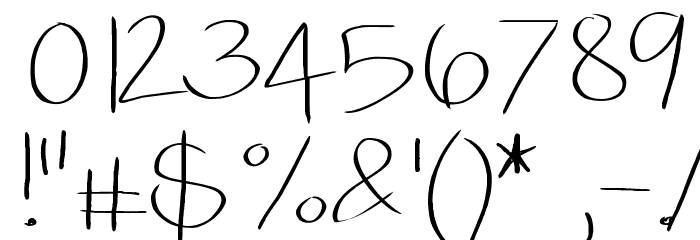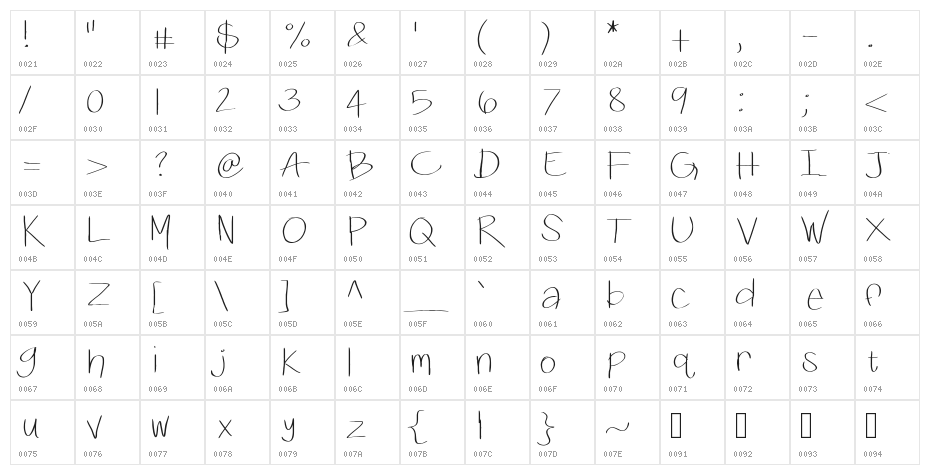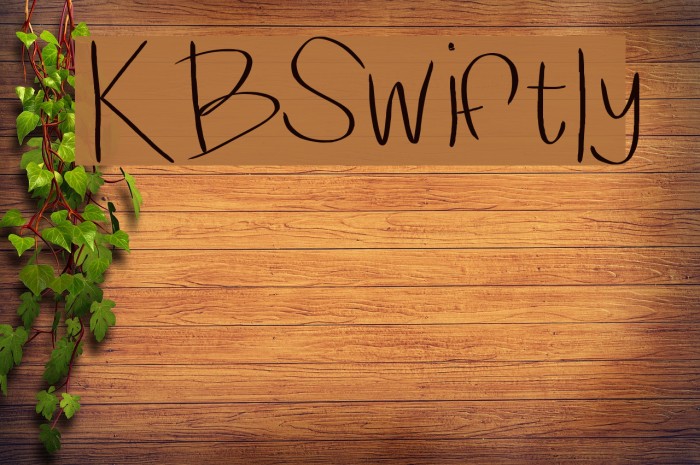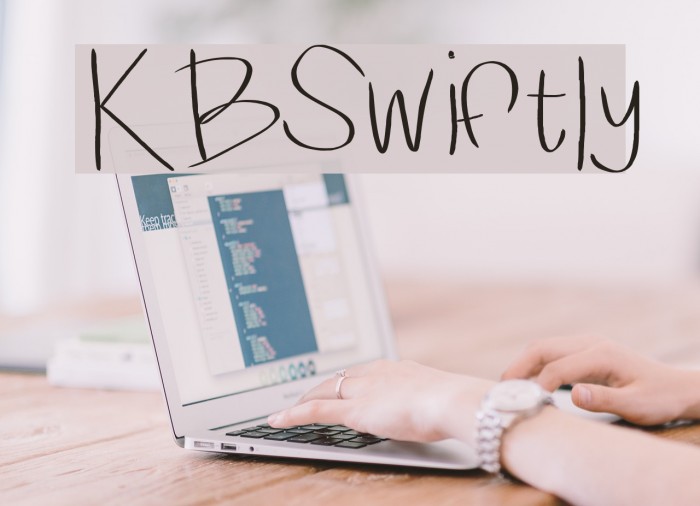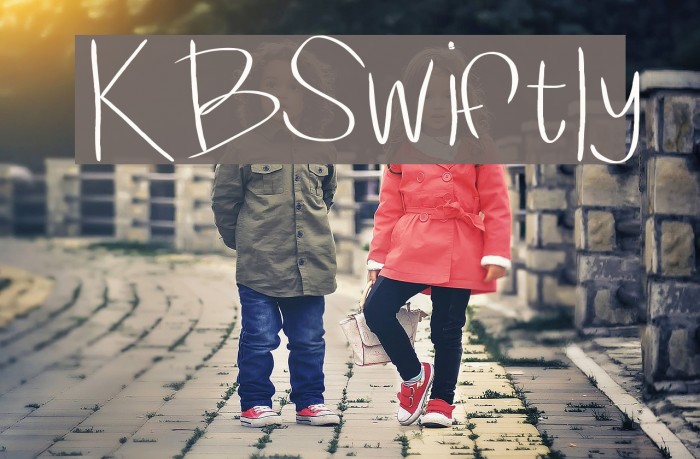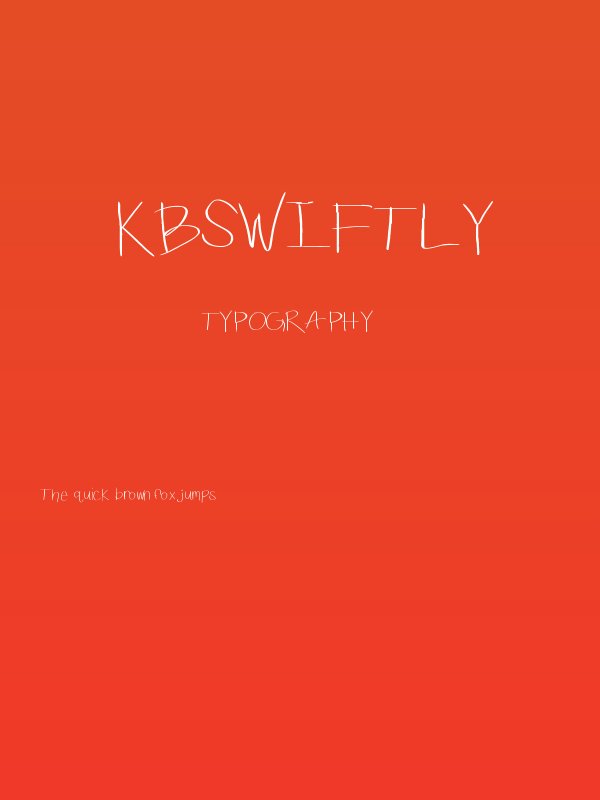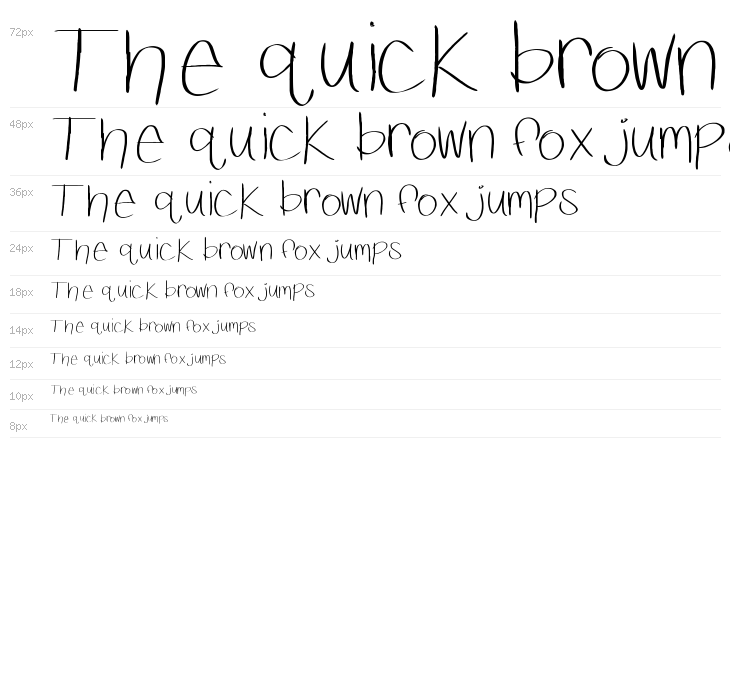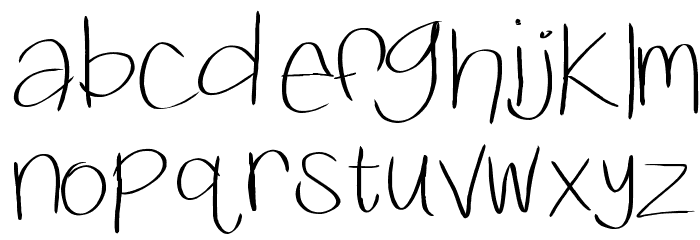
KBSwiftly Font
KBSwiftly Description
This font features a playful and casual handwritten style, characterized by its irregular strokes and whimsical flair. The letters have a natural, flowing appearance, with varying stroke thickness that adds a dynamic and lively feel. Uppercase letters maintain a consistent height, while lowercase letters exhibit a charming mix of loops and curves. The numerals are distinct and easy to read, complementing the overall informal aesthetic. Special characters are creatively designed, maintaining the font's unique personality. This font is perfect for projects that require a personal touch or a fun, approachable vibe.
| Proposed Projects | Ideal for greeting cards, invitations, children's books, and creative branding. |